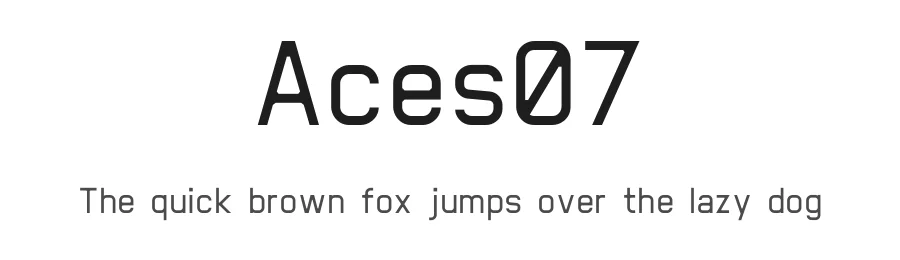
About Gigantesque Font
Gigantesque is a sans-serif font designed by Vladimir Nikolic. It includes 84 glyphs, a regular weight, TTF (TrueType) format, and 96 languages. Gigantesque is free to download; check the license details on this page before commercial use. Sans-serif fonts like Gigantesque work best for clean body text, user interfaces, branding, and modern layouts.
Gigantesque Font is a versatile sans-serif font that works for both headings and body text. Pair it with a contrasting serif or slab serif font to add visual interest and a clear distinction between titles and body copy.